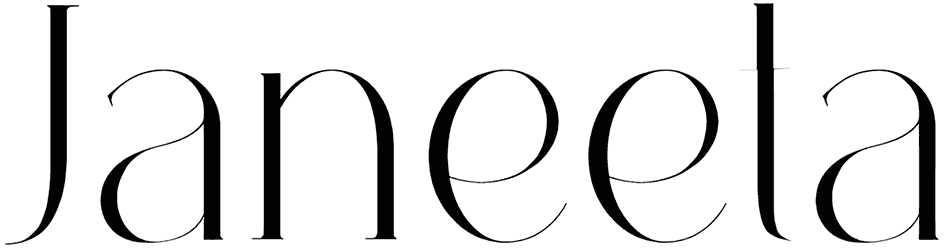
Janeeta Font
Choosing Janeeta for your branding projects only shows the impeccable taste you have in typography. Indeed, this neat font is entirely made of crisp bodies adorned with subtle details, but it’s pretty obvious about its sophisticated touch, and that’s what counts the most.
If you currently need any help with designing the cover of a business and finance magazine, art gallery logos, dance studio business cards, and other similar projects, this luxury font of RB is all yours.